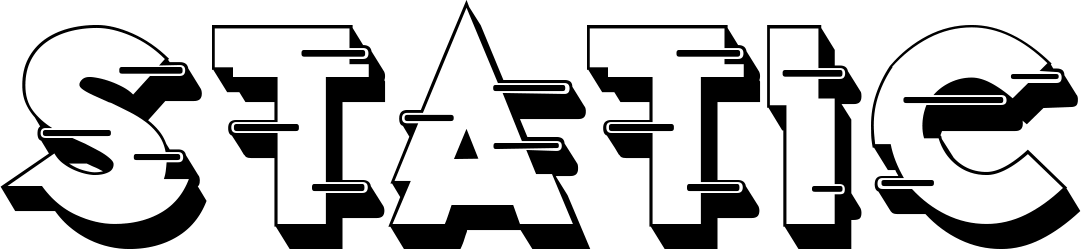
Static Font
If distorted fonts are what you are looking for, you better consider Static and make use of them for your typography projects. Take advantage of the shadowed letters and make your headlines, titles, and other related projects more eye-catching. Just notice that this font supports only uppercase letters. Need more? Visit our website now.